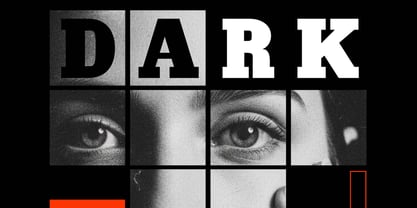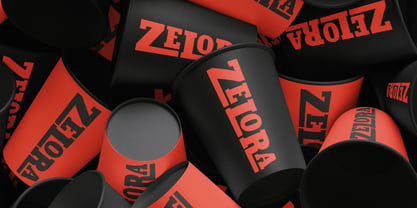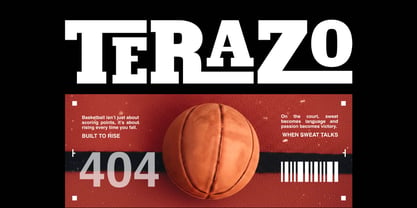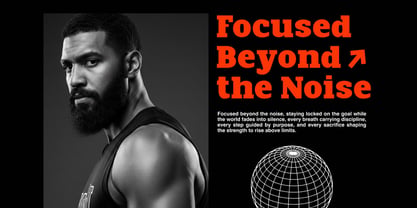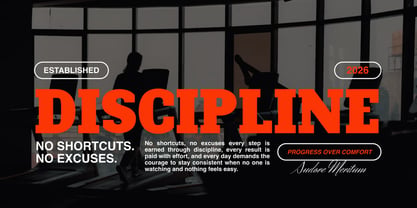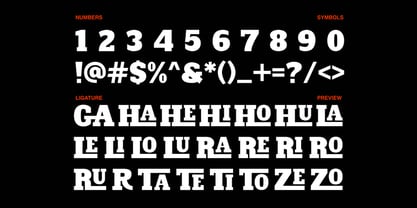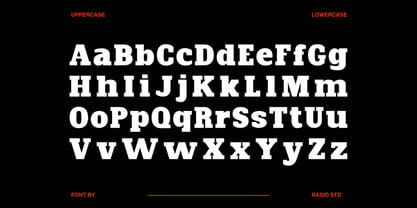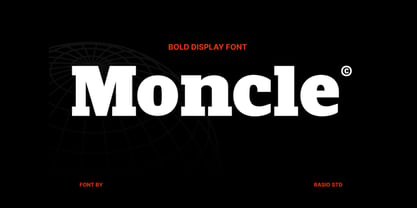
Moncle
por Rasio Studio
La familia tipográfica Moncle fue diseñada por Fajar Indra y publicada por Rasio Studio. Moncle contiene 1 estilos. Más información sobre esta familia
Moncle is a bold slab serif display font built for impact and clarity. With thick, blocky serifs and a strong typographic presence, it's ideal for headlines, sports branding, poster layouts, apparel, and editorial designs that need confidence and structure. Moncle is perfect for designers seeking a font that conveys strength, reliability, and bold visual presence. Whether for sports logos, gym promotions, motivational posters, fashion branding, or masculine editorial titles, this typeface adds a commanding voice.